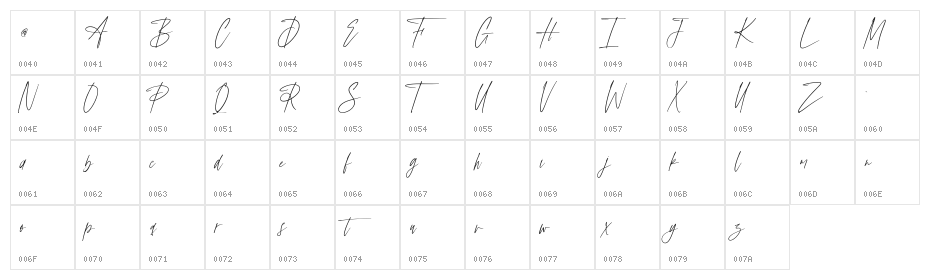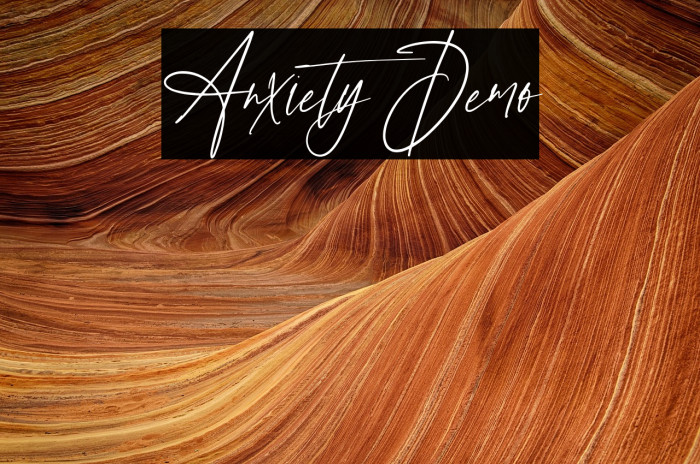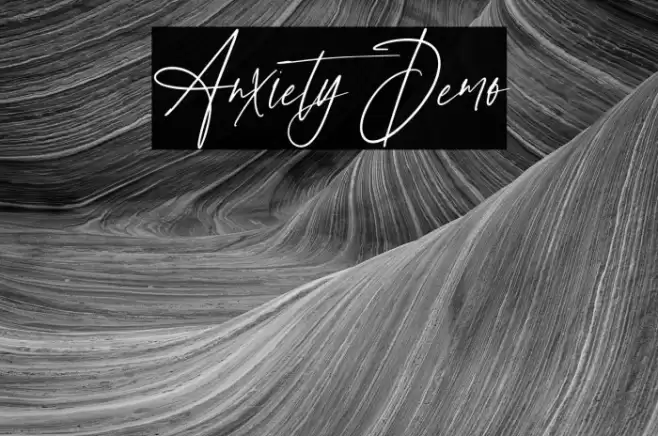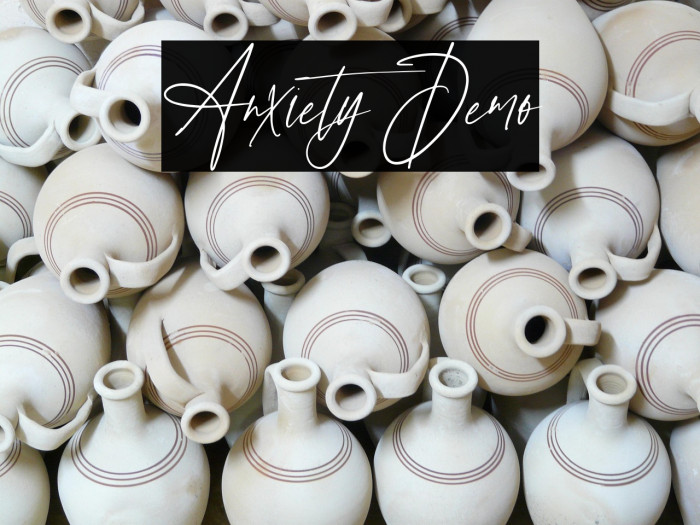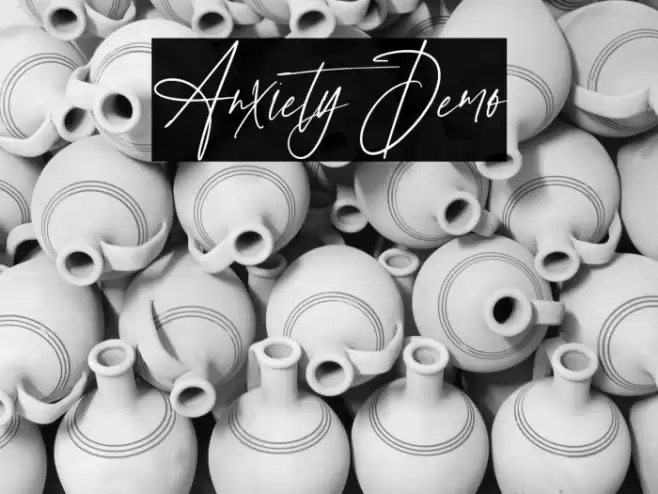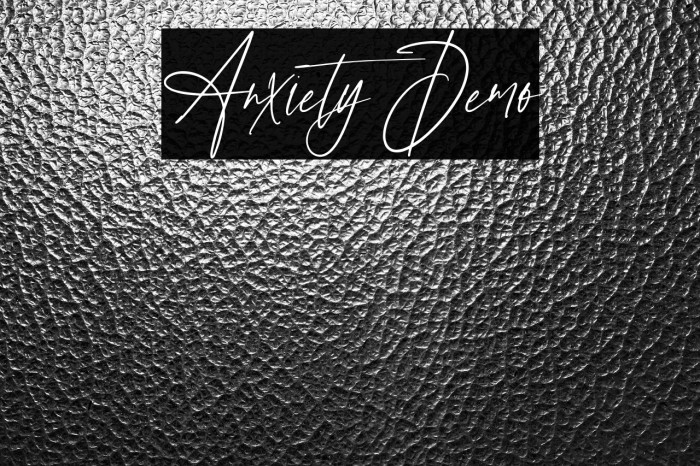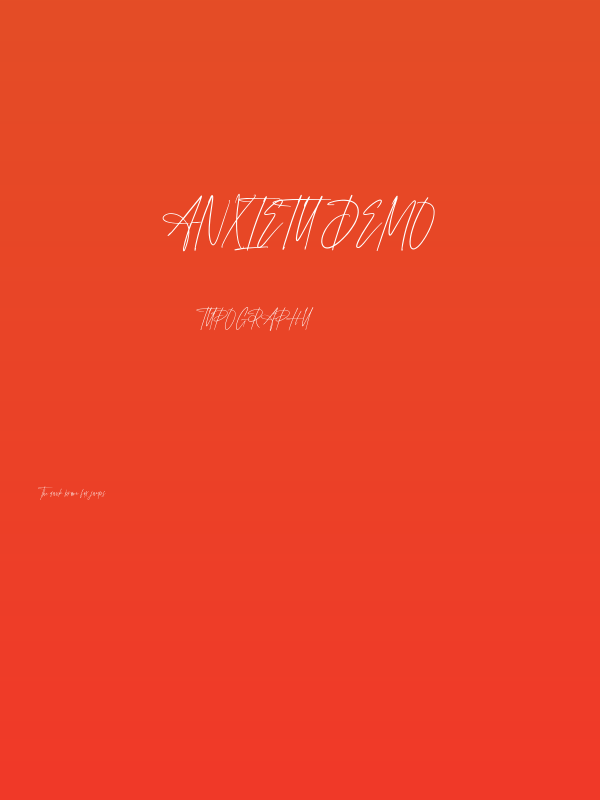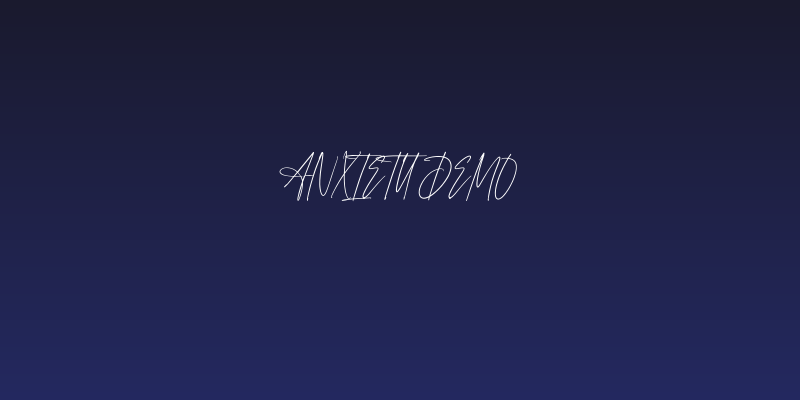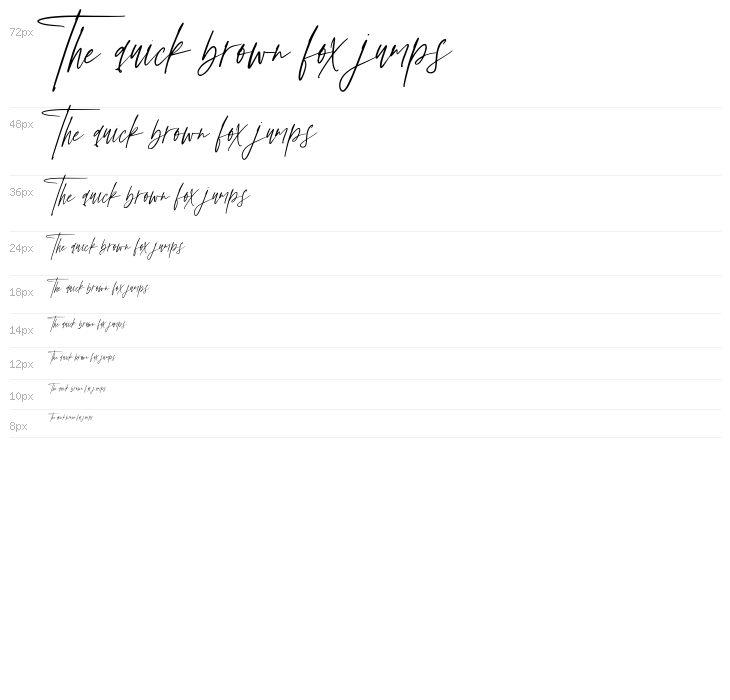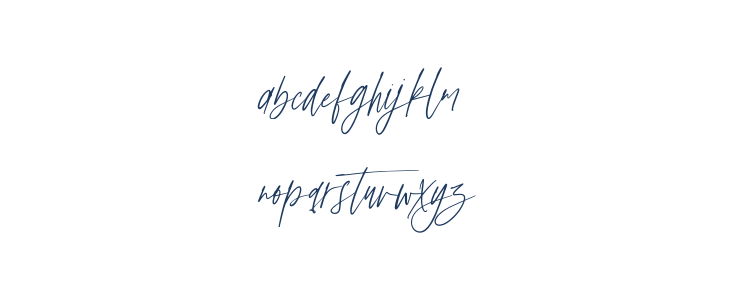
Anxiety Demo Font
Anxiety Demo Description
This font features a dynamic and expressive handwritten style, characterized by its elongated and flowing letterforms. The strokes are thin and delicate, giving it an airy and light appearance. The letters are slightly slanted, adding a sense of motion and fluidity. The uppercase and lowercase letters maintain a consistent style, with a playful and artistic flair. This font's unique personality makes it stand out, offering a sense of creativity and spontaneity. The spacing between characters is varied, contributing to its informal and casual look.
Use CaseLogos, Headlines, Artistic projects
Proposed ProjectsIdeal for creative projects such as invitations, greeting cards, branding, and artistic posters.